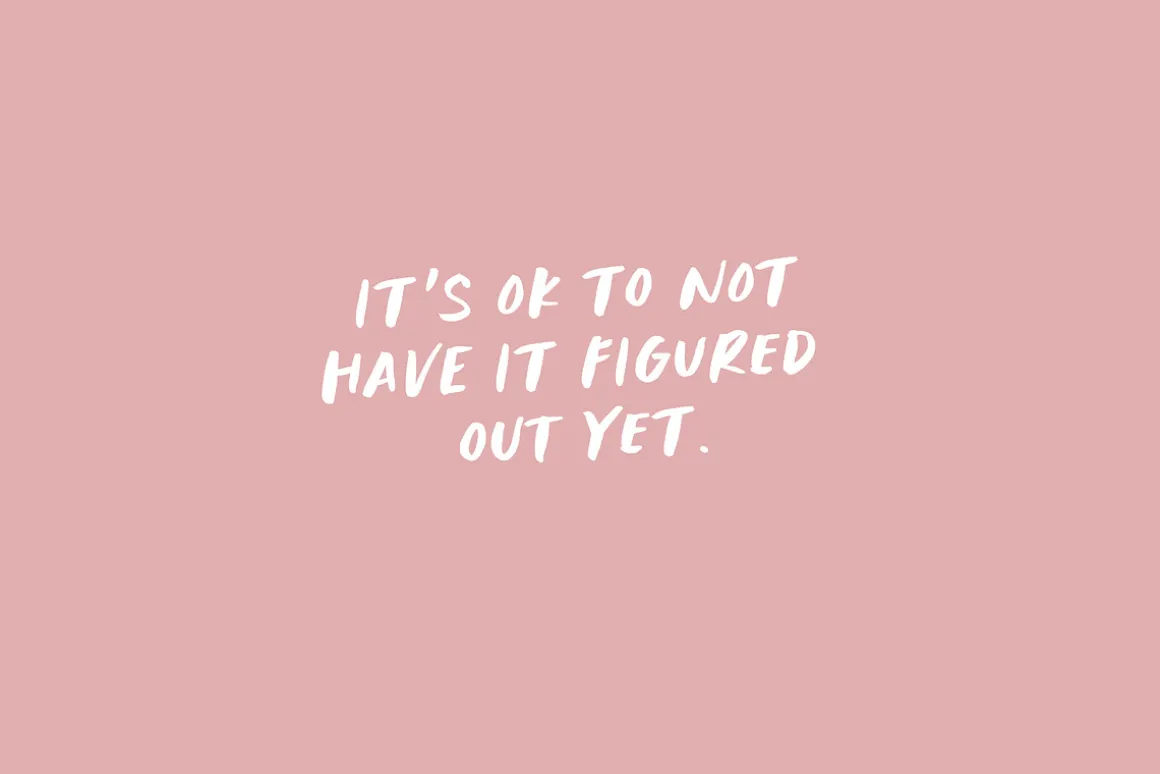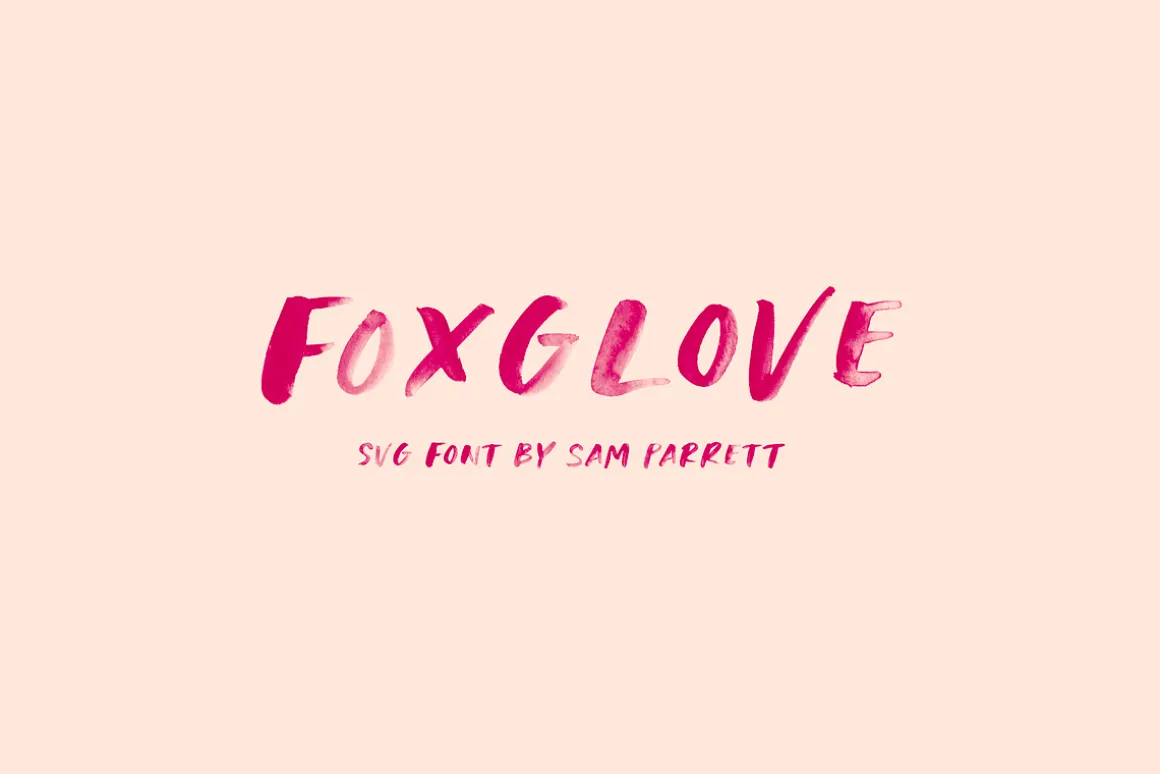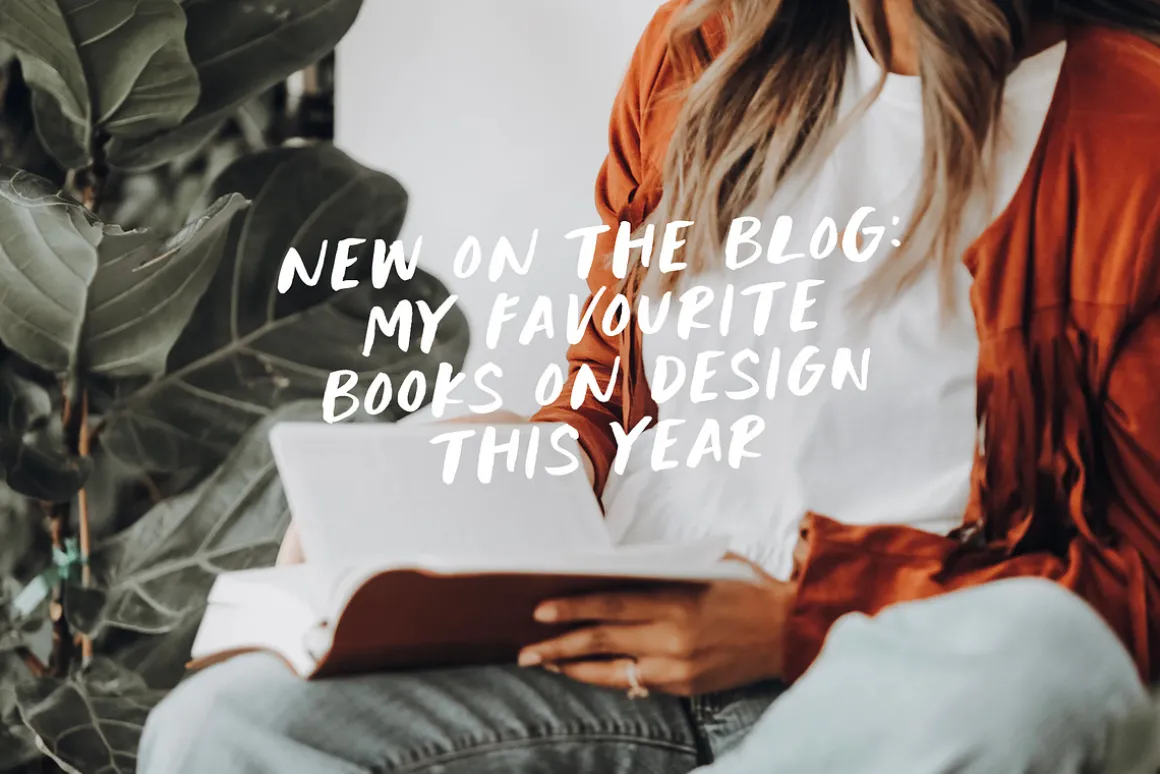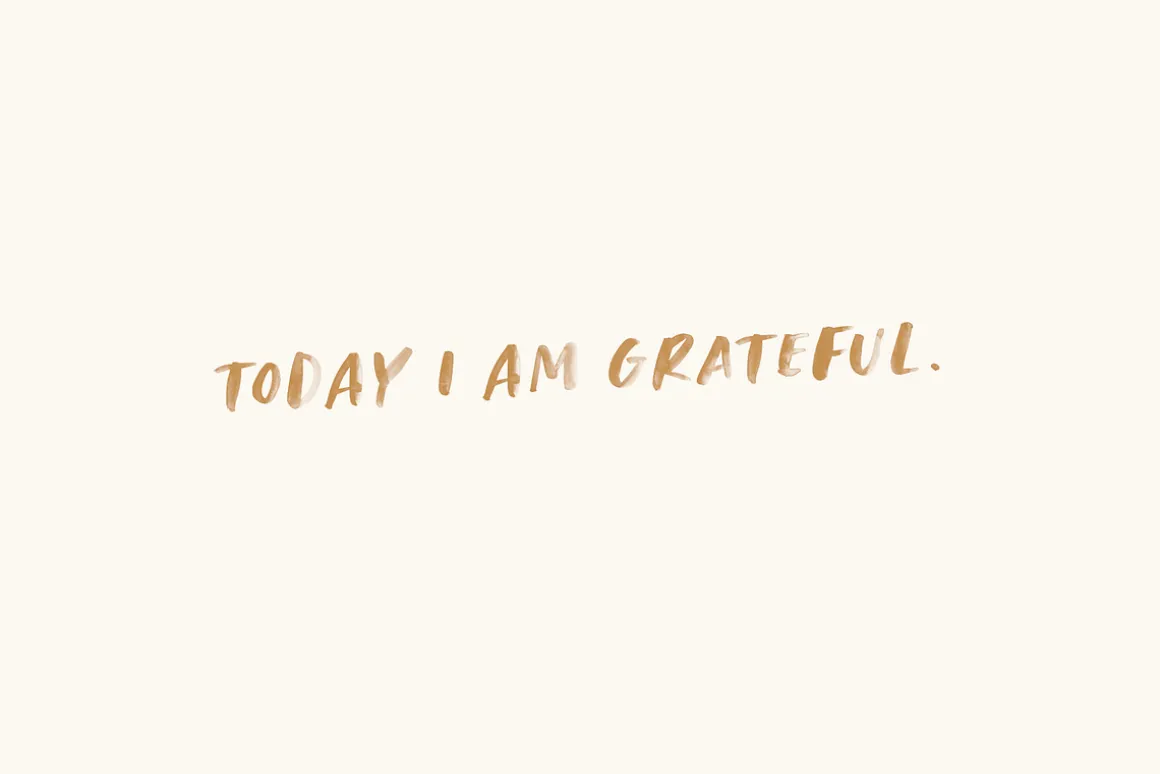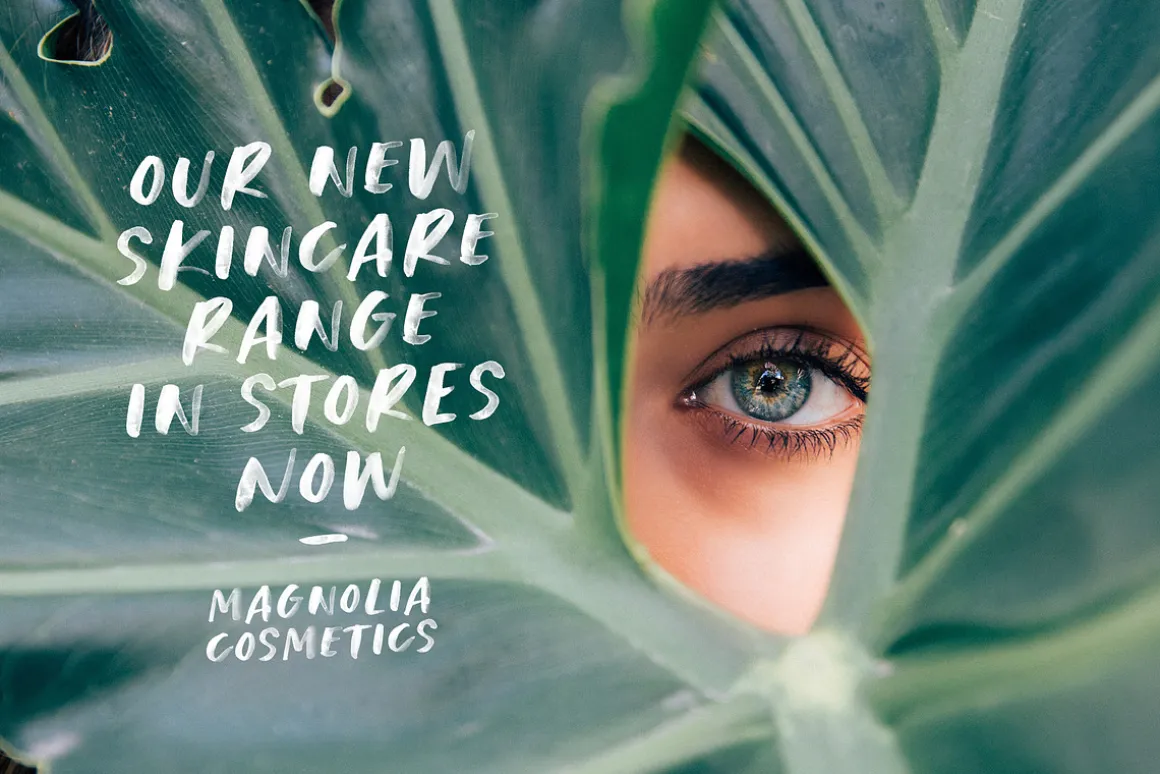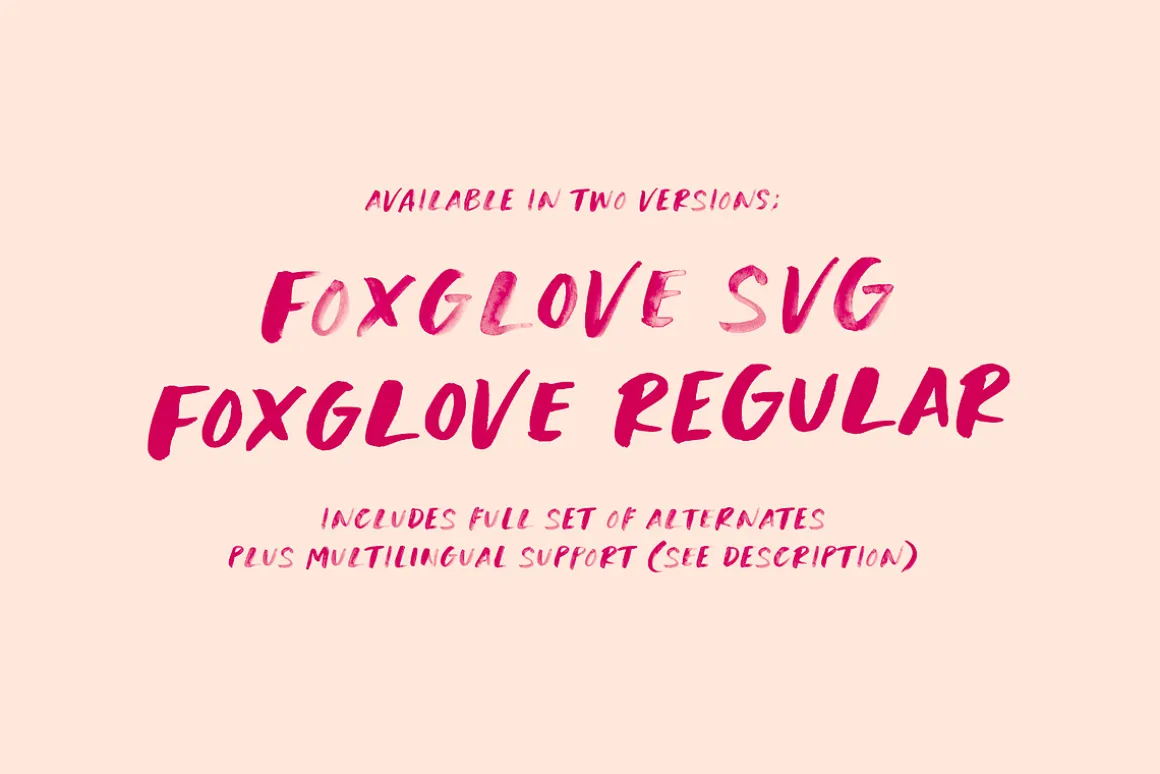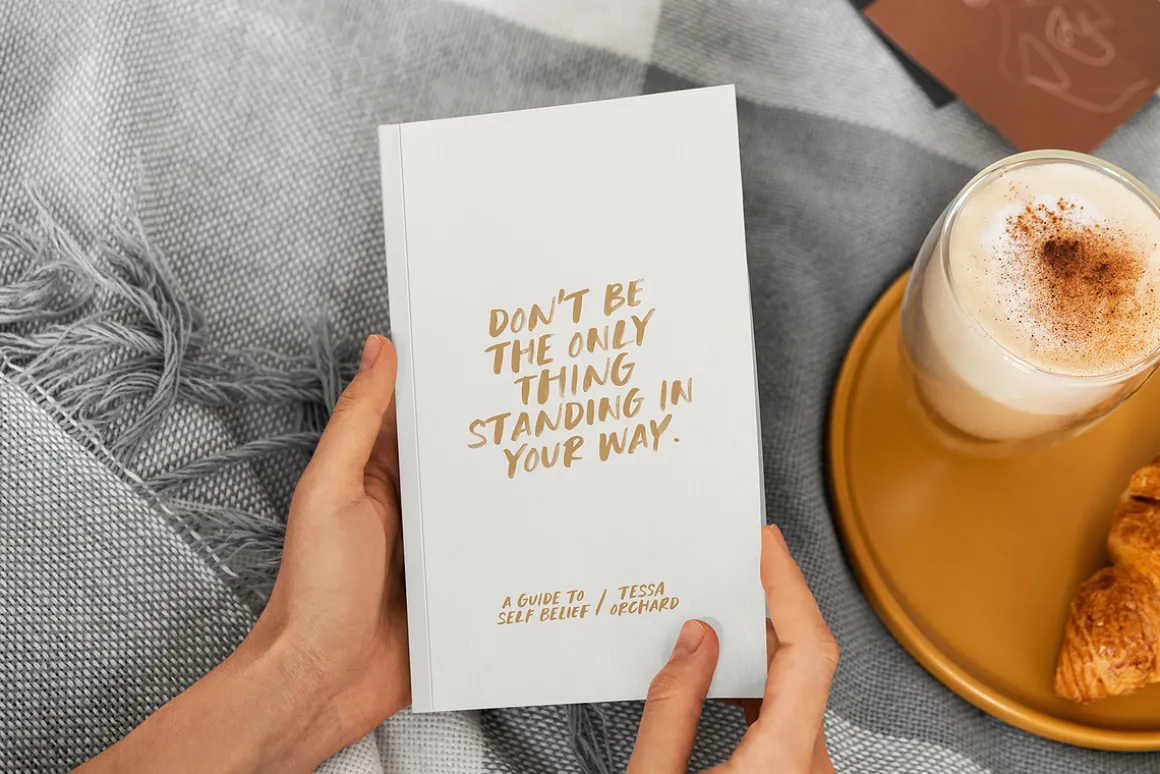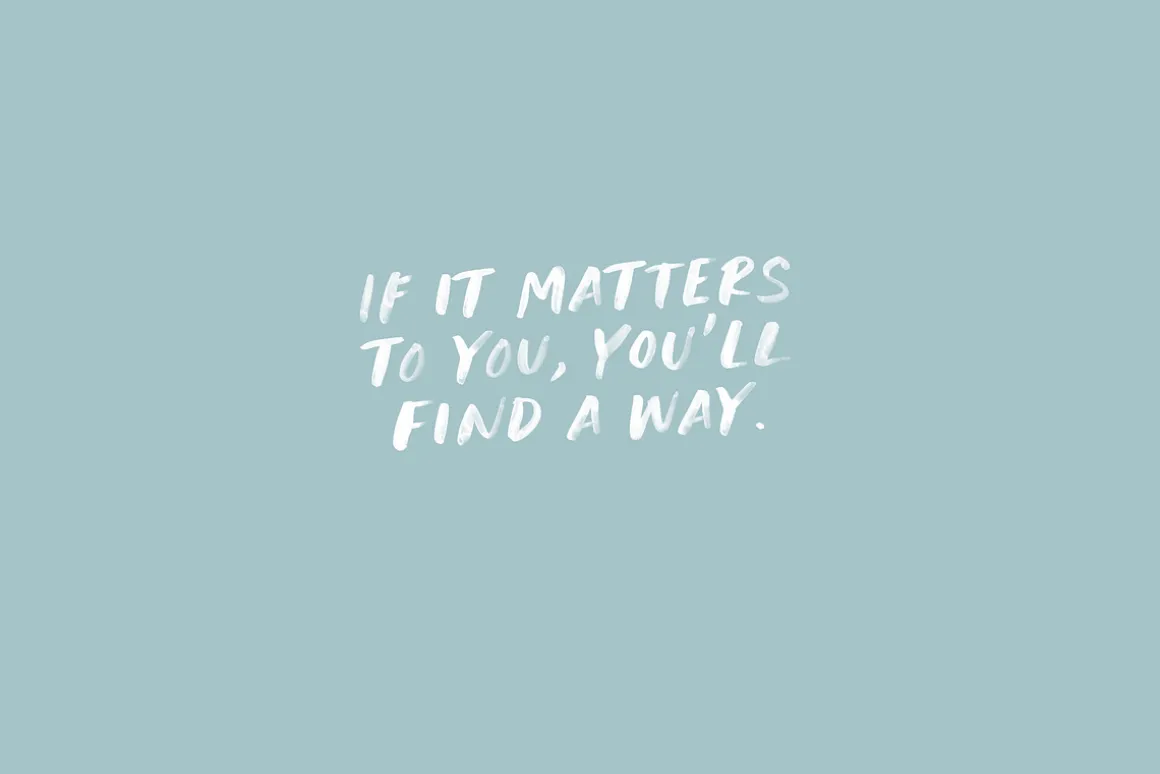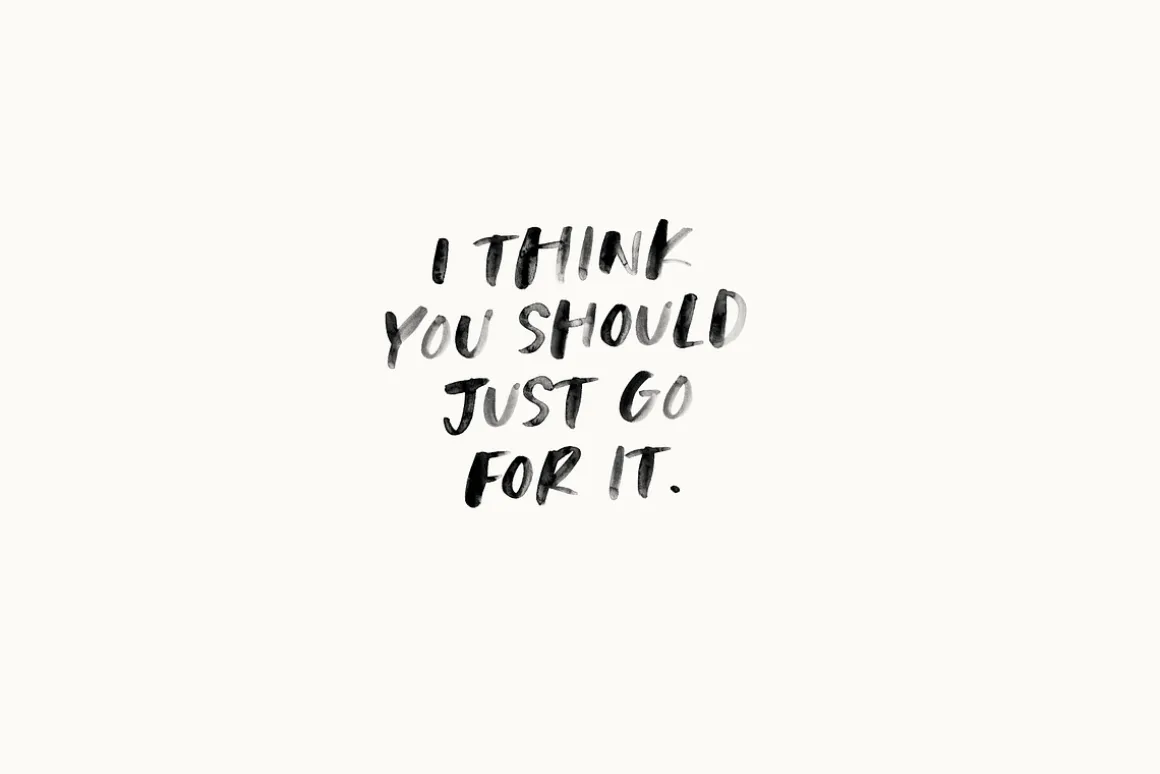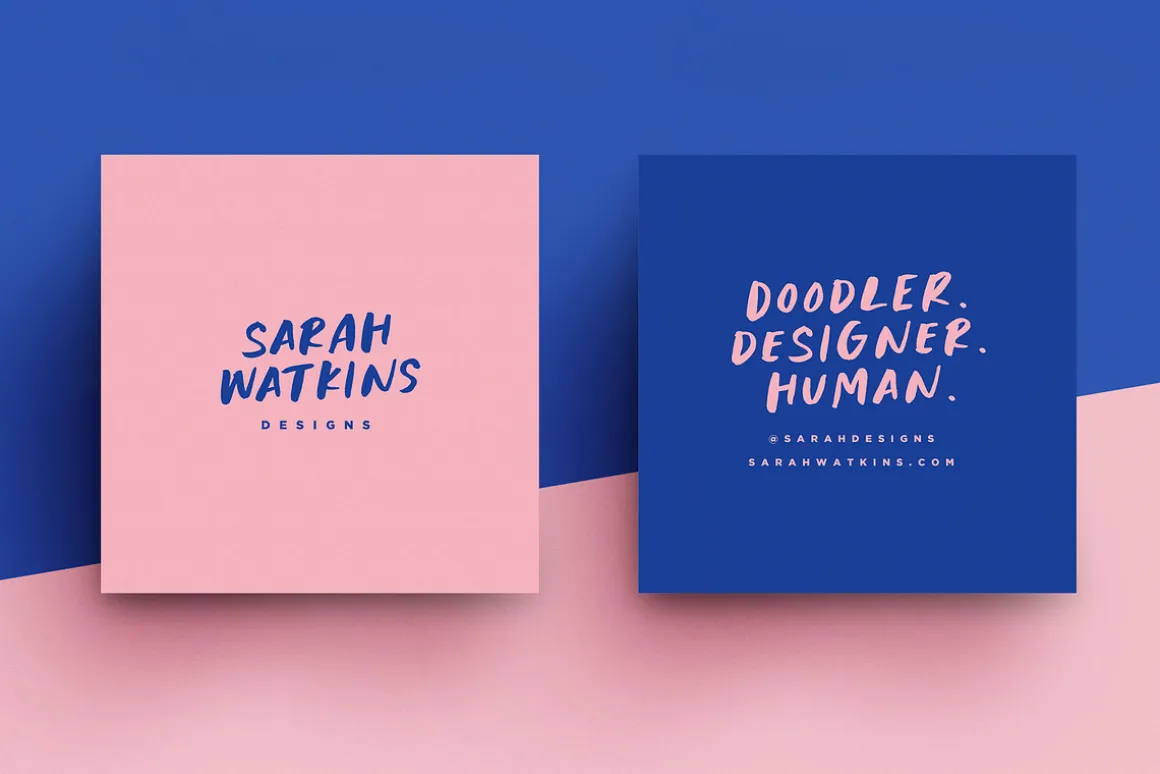
Foxglove is a playful, minimal brush font designed to add a personal & relatable quality to quotes, branding, promotional images and product designs.
Foxglove comes in two versions; an Opentype-SVG with built in transparent watercolour textures, and a regular version with a filled in, solid texture. ❗The Opentype-SVG fonts require Photoshop CC 2017, Illustrator CC 2018, or Procreate 4.3 (or newer) to use. The regular version is in a traditional font format which is widely supported.
Both fonts contain two sets of uppercase characters, you can switch between these simply by turning your caps-lock on & off.
The regular font contains language support for; English, French, Italian, Spanish, Portuguese, German, Swedish, Norwegian, Danish, Dutch, Finnish, Indonesian, Malay, Hungarian, Polish, Croatian, Turkish, Romanian, Czech, Latvian, Lithuanian, Slovak, Slovenian.
The SVG font contains the following accents which can be manually added to your letters; ¨ ˜ ´ ˆ ` ˚ ˘ ˉ ˝ ˇ˛ ¸